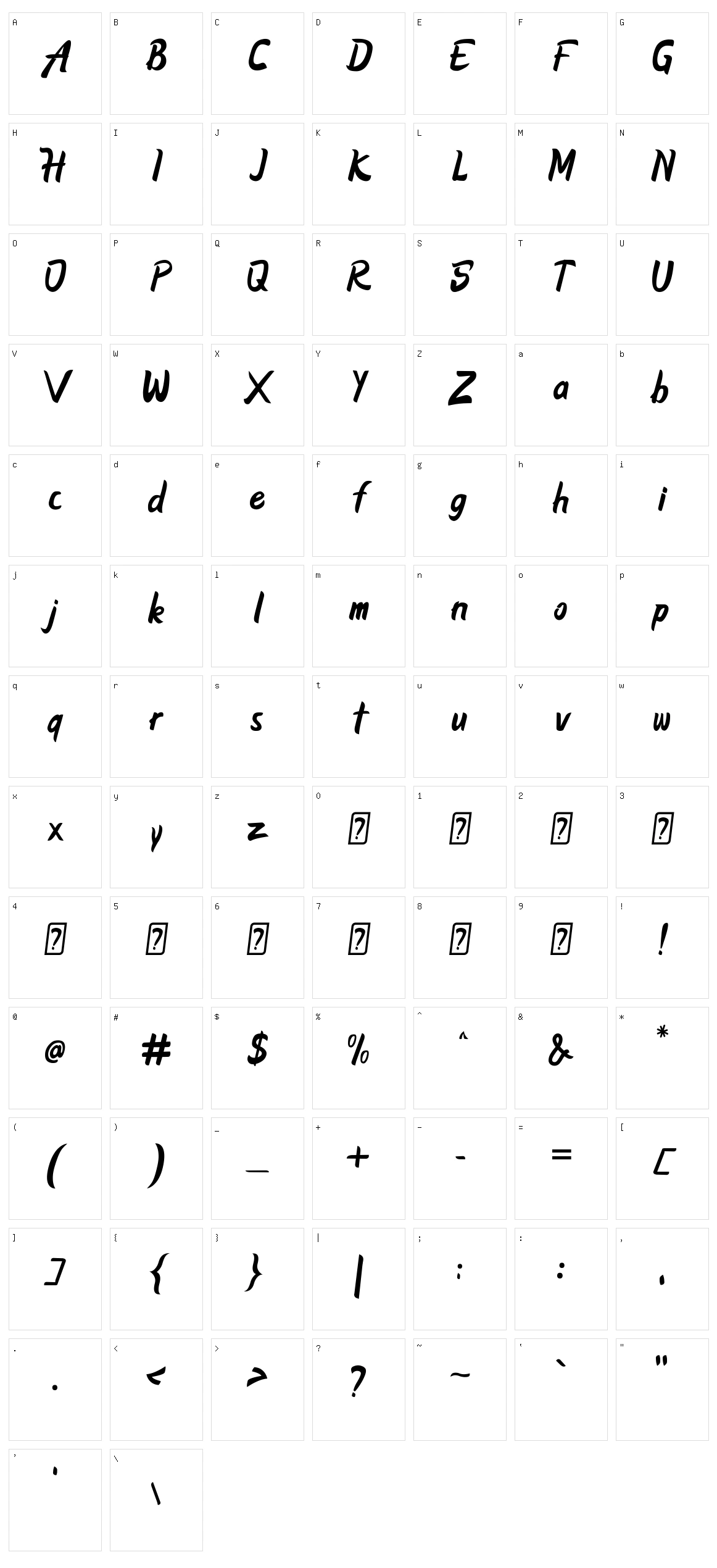
The free font Betterize is carefully designed by Ridwan Soleh Saputra, showcasing a thoughtful balance of creativity and usability and falls under the Script font style. When you download the ZIP file, it contains only 13.84 KB of font files, making it lightweight and quick to download. Please review the license details below to understand permitted usage and distribution rights. If license information is not available, we recommend using this font for personal projects only or contacting the author directly for commercial usage permissions.